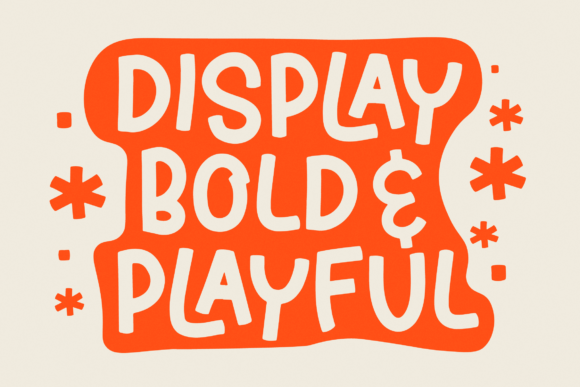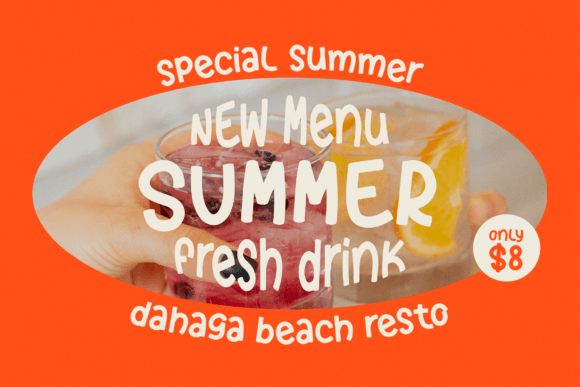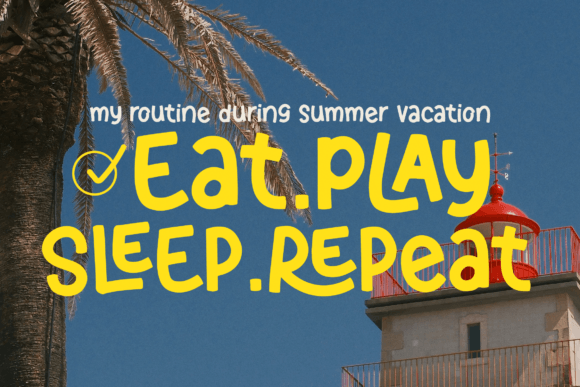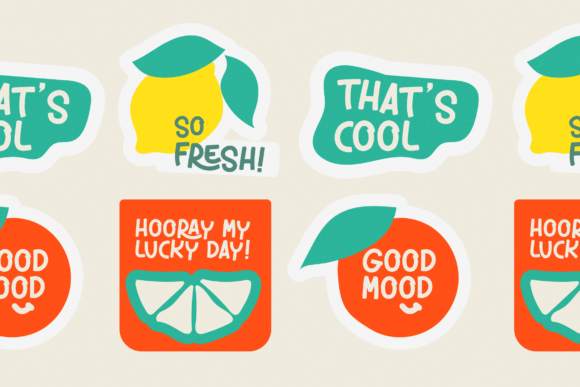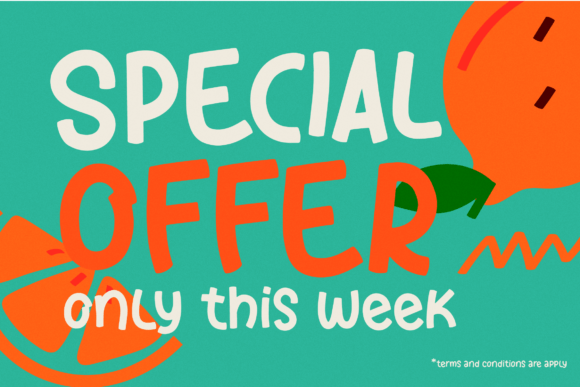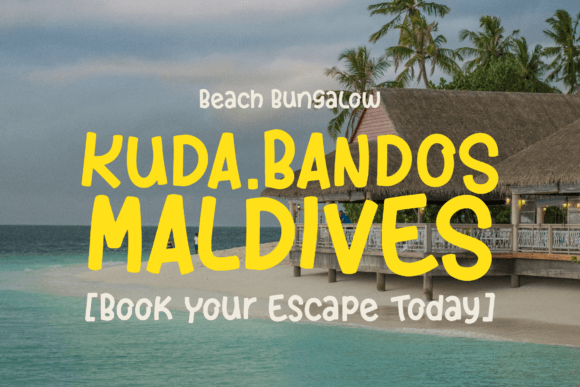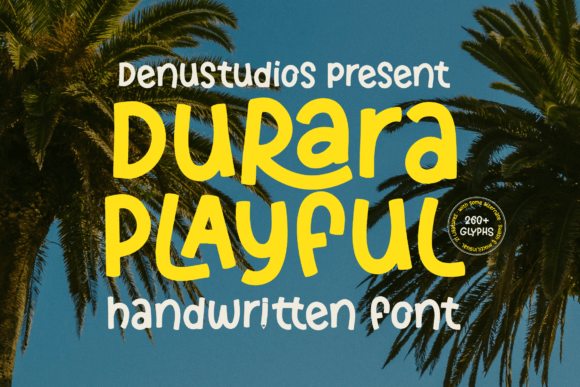
Introducing Durara Playful Font: The Ultimate Choice for Creative Designs
Are you a designer, crafter, or DIY enthusiast looking for a font that can add a touch of playfulness and friendliness to your creations? Look no further than Durara Playful Font! This delightful handwritten font is designed to bring a smile to your face and make your designs stand out. In this article, we’ll dive into the features and benefits of Durara Playful Font, and explore how it can elevate your creative projects.
What is Durara Playful Font?
Durara Playful is a fun and cheerful handwritten font that boasts smooth, rounded letters that feel friendly and easy to read. Its unique charm makes it perfect for a wide range of creative applications, from cards and invitations to kids’ designs and more. Whether you’re designing for a personal project or a commercial client, Durara Playful Font is sure to bring a touch of whimsy and personality to your work.
Key Features of Durara Playful Font
- Handwritten with love: Durara Playful Font is carefully crafted with a personal touch, giving it a warm and inviting feel.
: The font’s smooth, rounded letters make it easy to read and add a touch of friendliness to your designs. - Perfect for creative projects: Durara Playful Font is ideal for cards, invitations, kids’ designs, and any other creative project that needs a playful touch.
Benefits of Using Durara Playful Font
So, why choose Durara Playful Font for your creative projects? Here are just a few benefits of using this delightful font:
- Adds a personal touch: Durara Playful Font gives your designs a personal, handmade feel that’s sure to connect with your audience.
- Versatile: This font can be used for a wide range of creative projects, from formal invitations to playful kids’ designs.
- Easy to read: The smooth, rounded letters of Durara Playful Font make it easy to read, even for young children or those with visual impairments.
- Unique and creative: With Durara Playful Font, you can add a touch of whimsy and personality to your designs, setting them apart from the crowd.
How to Use Durara Playful Font
Using Durara Playful Font is easy! Here are a few tips to get you started:
- Pair it with other fonts: Combine Durara Playful Font with other fonts to create a unique and eye-catching design.
- Experiment with colors: Try out different colors and color combinations to add an extra pop of personality to your designs.
- Use it for kids’ designs: Durara Playful Font is perfect for kids’ designs, such as birthday cards, party invitations, and educational materials.
- Add your own touch: Don’t be afraid to add your own personal touch to your designs with Durara Playful Font.
Durara Playful Font is a fun and cheerful handwritten font that’s perfect for designers, crafters, and DIY enthusiasts. With its smooth, rounded letters and friendly feel, it’s ideal for a wide range of creative projects. Whether you’re designing for a personal project or a commercial client, Durara Playful Font is sure to bring a touch of whimsy and personality to your work. So why wait? Try Durara Playful Font today and see the difference it can make in your designs!